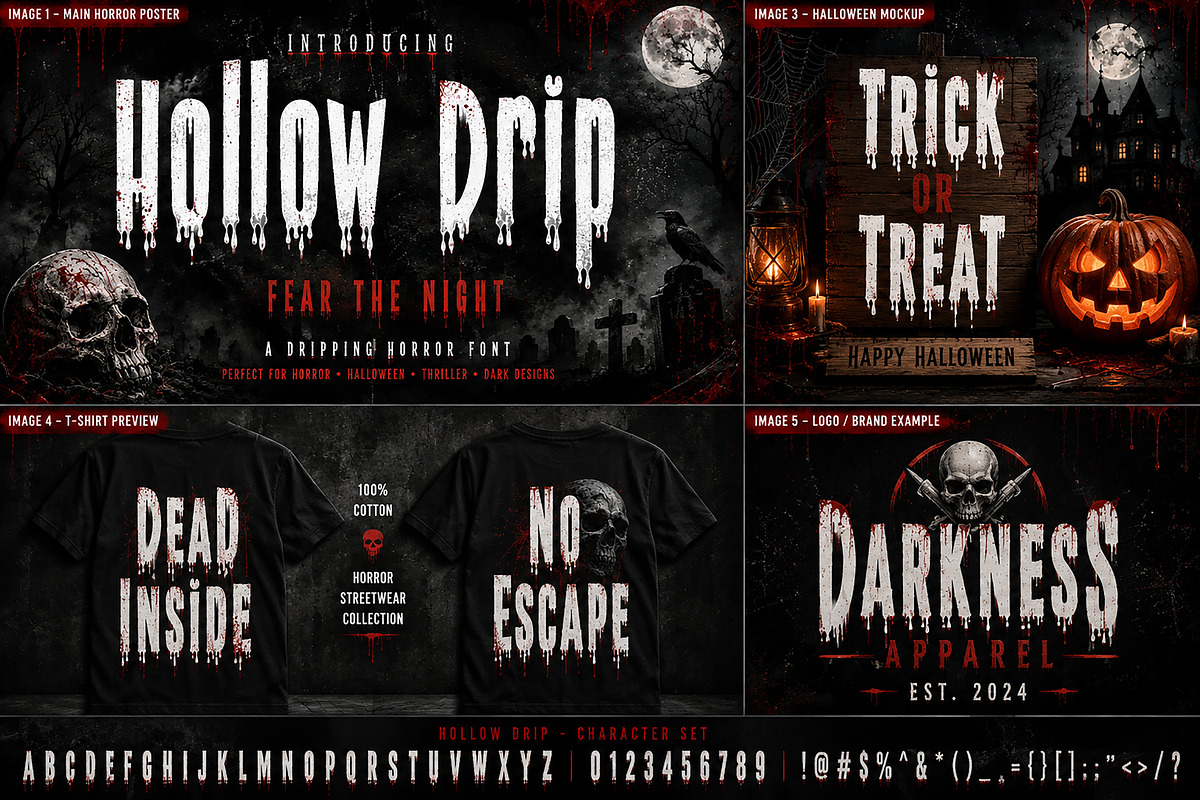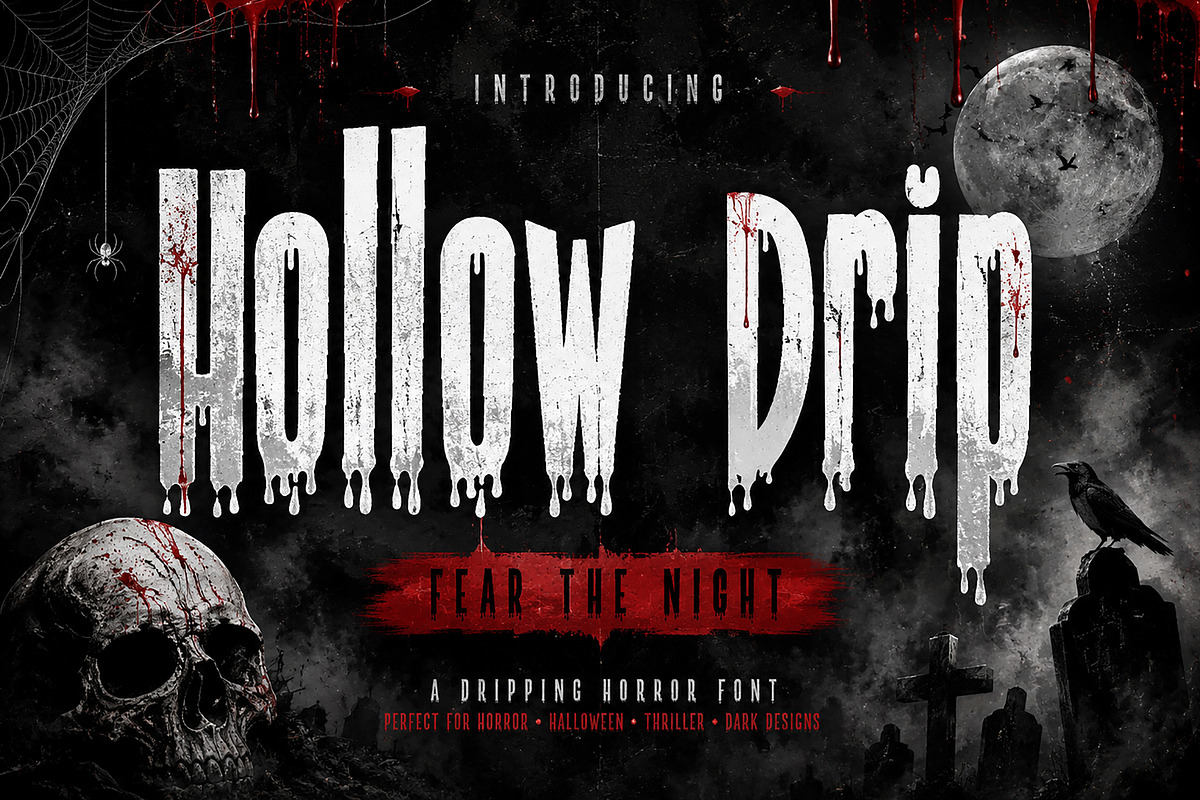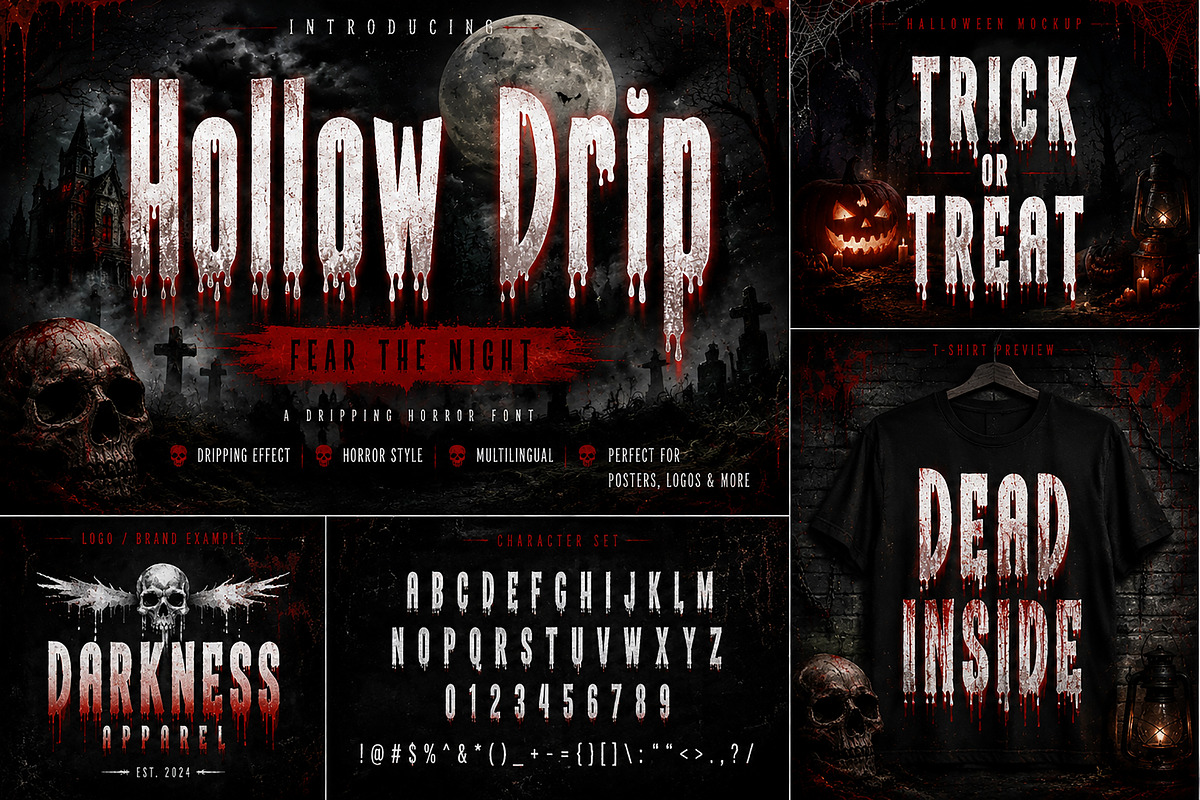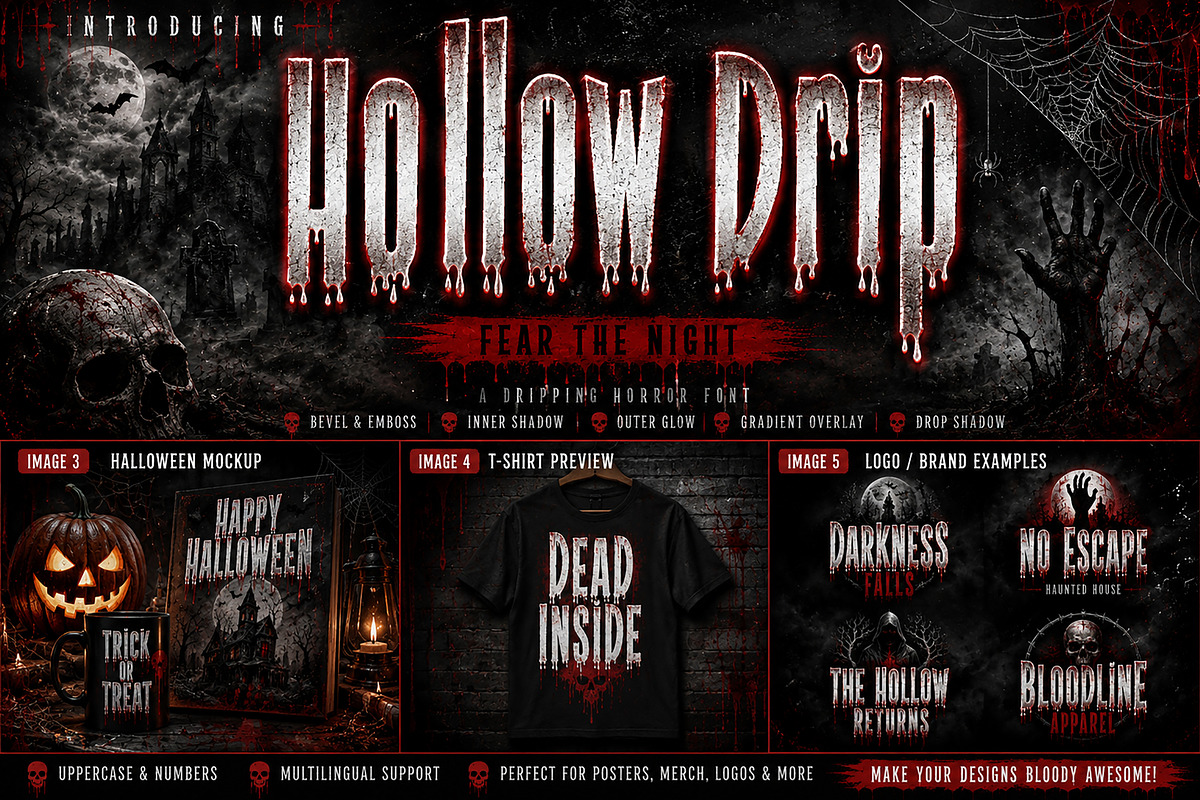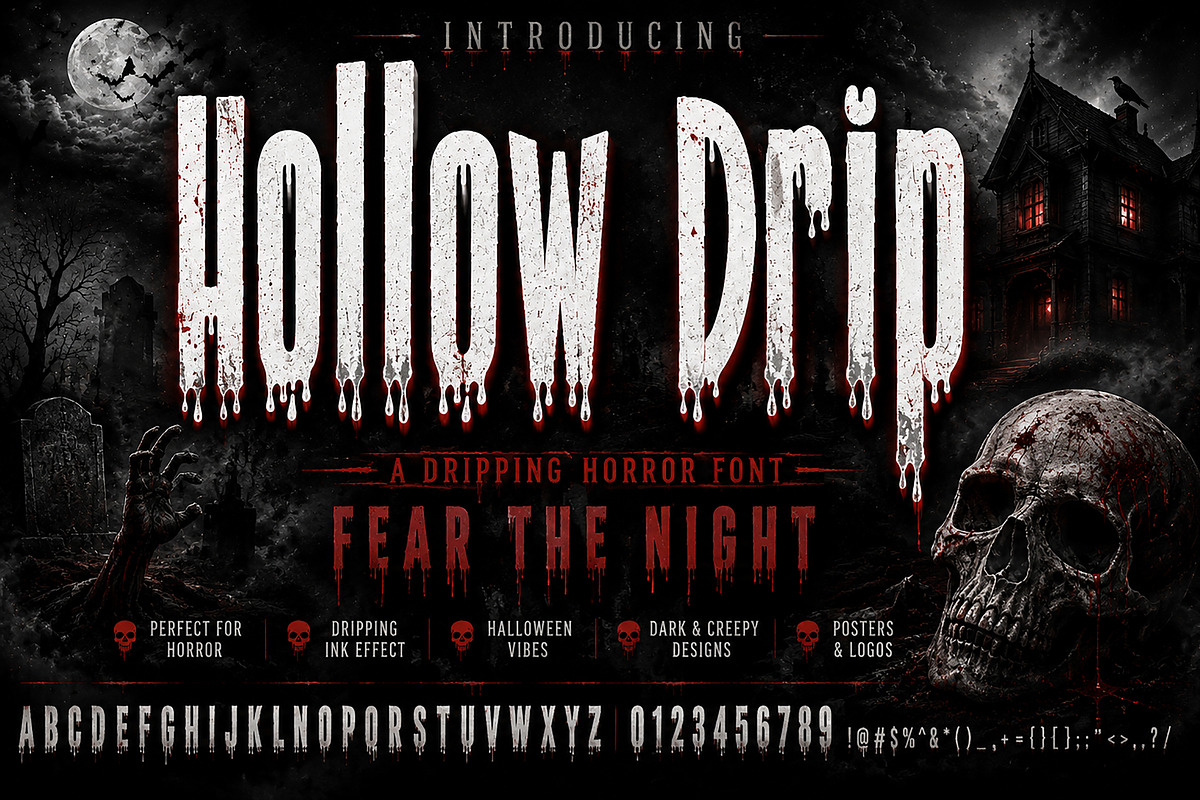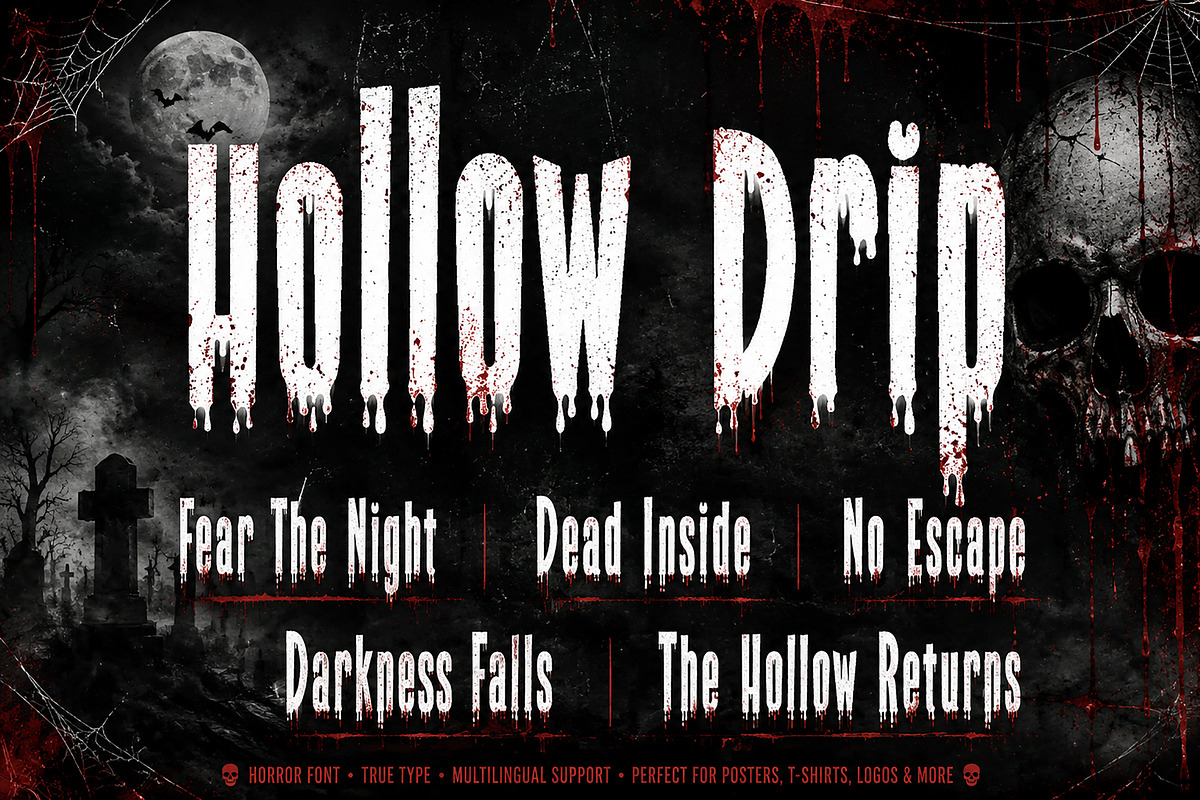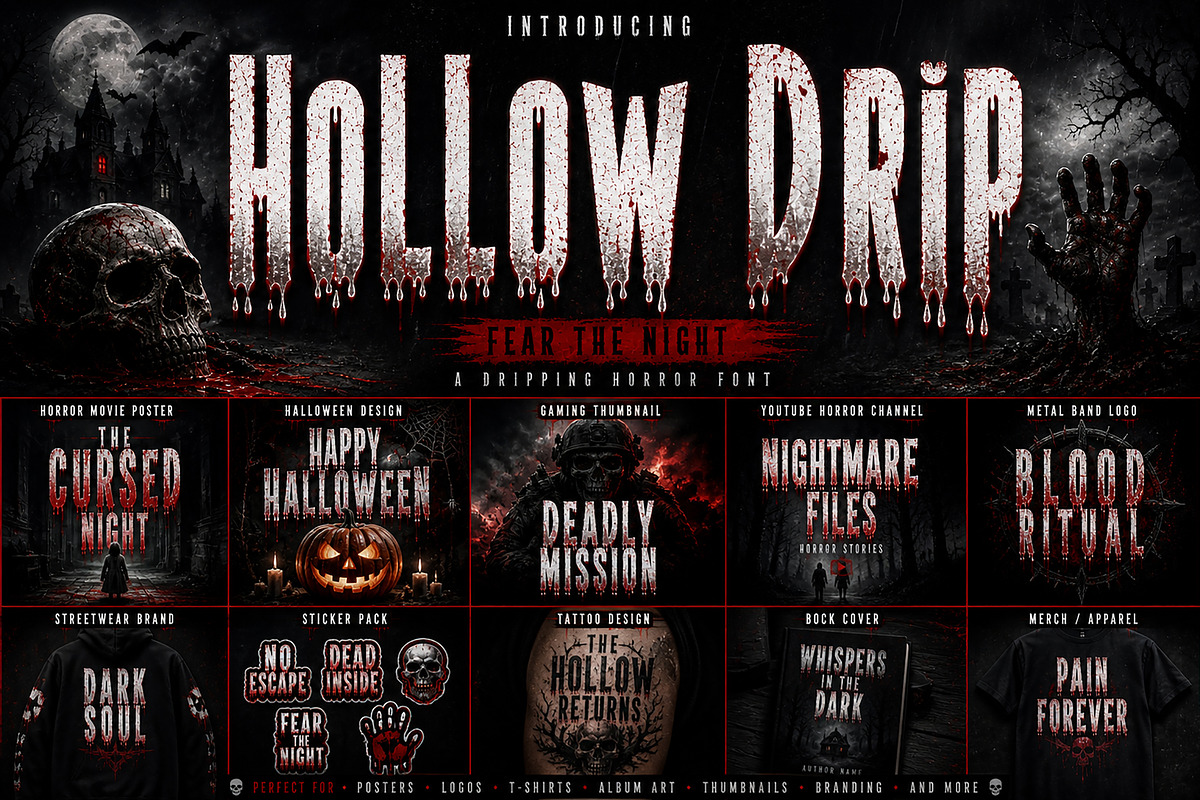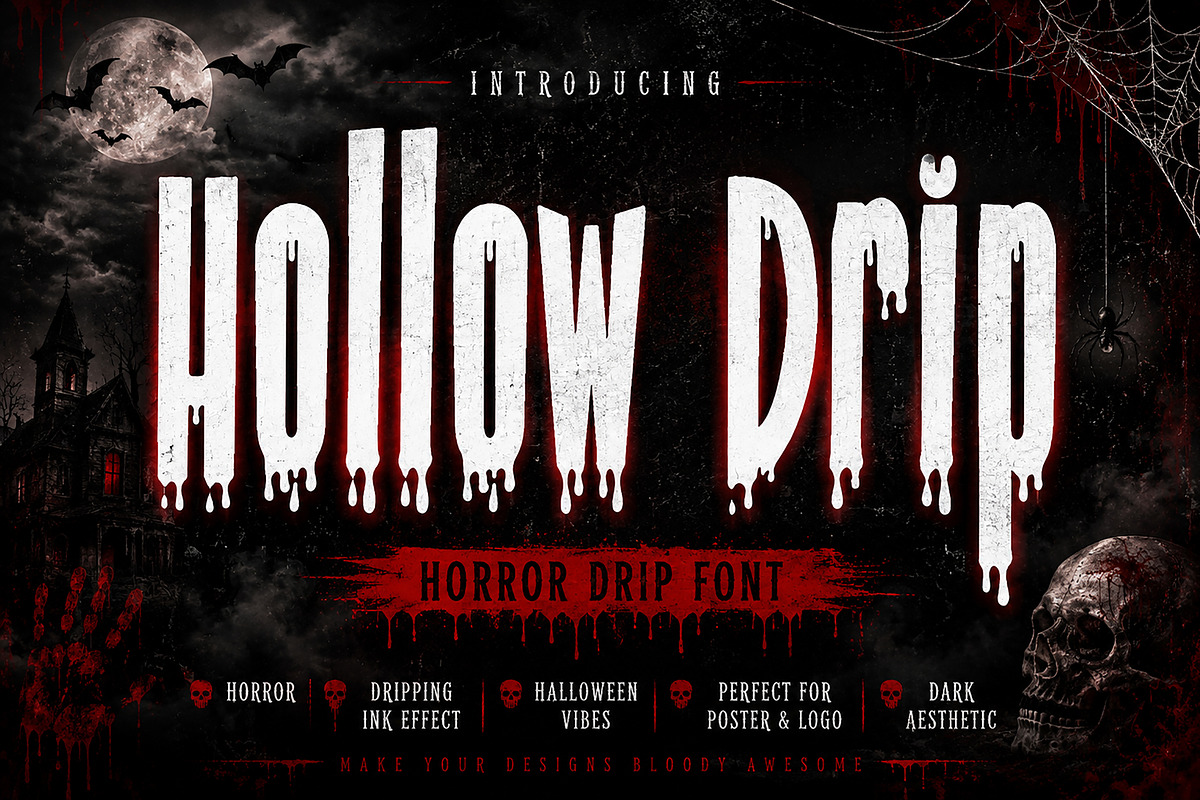
Hollow Drip
Hollow Drip – Horror Dripping Display Font
Hollow Drip is a spooky dripping display font with a horror-inspired style, perfect for Halloween designs, scary posters, gaming graphics, and creepy typography projects.
Hollow Drip is a chilling horror display font featuring tall bold letterforms with dramatic dripping effects that create a dark, spooky, and eerie atmosphere. Inspired by classic horror movies, Halloween aesthetics, and creepy visual styles, this font delivers a terrifying yet playful personality perfect for eye-catching designs.
Its elongated shapes and dripping details make Hollow Drip ideal for projects that need a haunting and unforgettable look. Whether you're designing Halloween party invitations, horror movie posters, gaming thumbnails, haunted house branding, or spooky social media graphics, this font instantly adds suspense and creepy character.
The bold structure keeps your text readable while the dripping effect creates a strong horror vibe that stands out in both digital and print projects.
Perfect for creators looking to bring fear, fun, and dramatic style into their typography.
Halloween designs
Horror movie posters
Gaming graphics
Spooky invitations
Haunted house branding
YouTube thumbnails
Creepy social media posts
Event posters
T-shirt designs
Horror typography projects
Uppercase letters
Lowercase letters
Dripping horror style
Tall bold letterforms
Creepy and spooky appearance
High visual impact
Easy-to-read display font